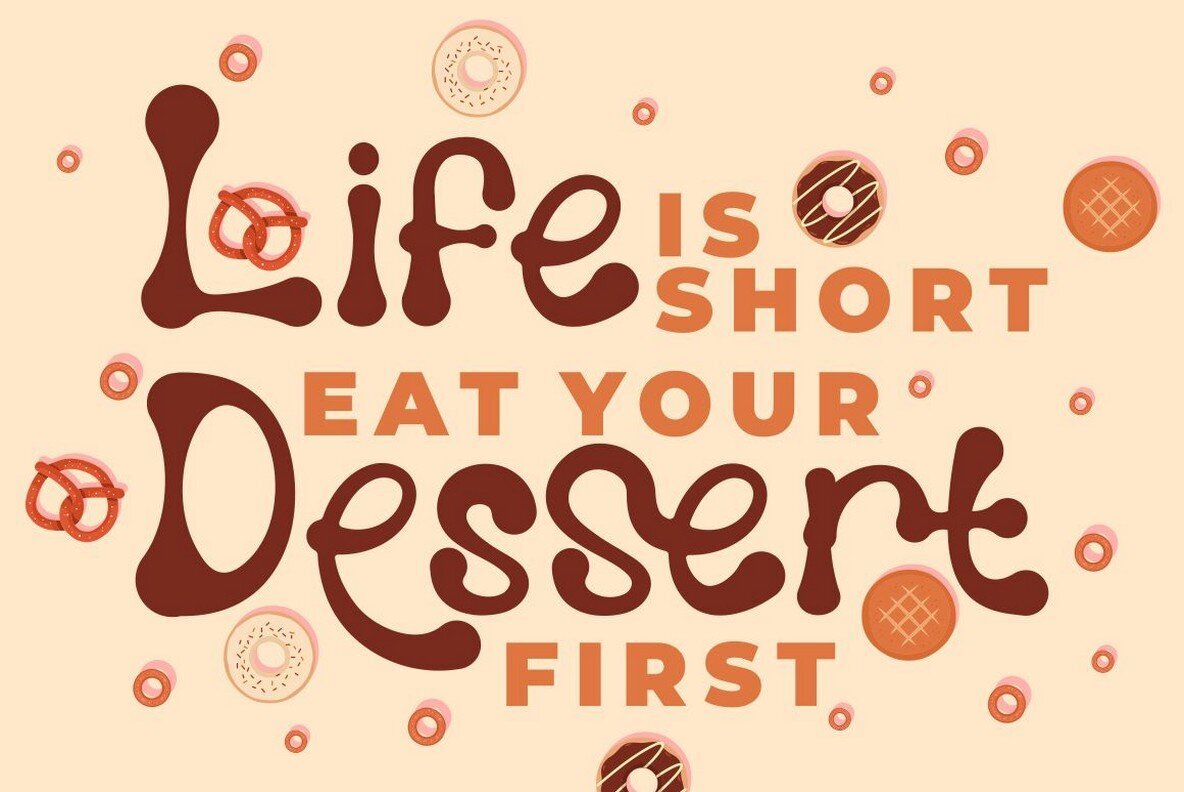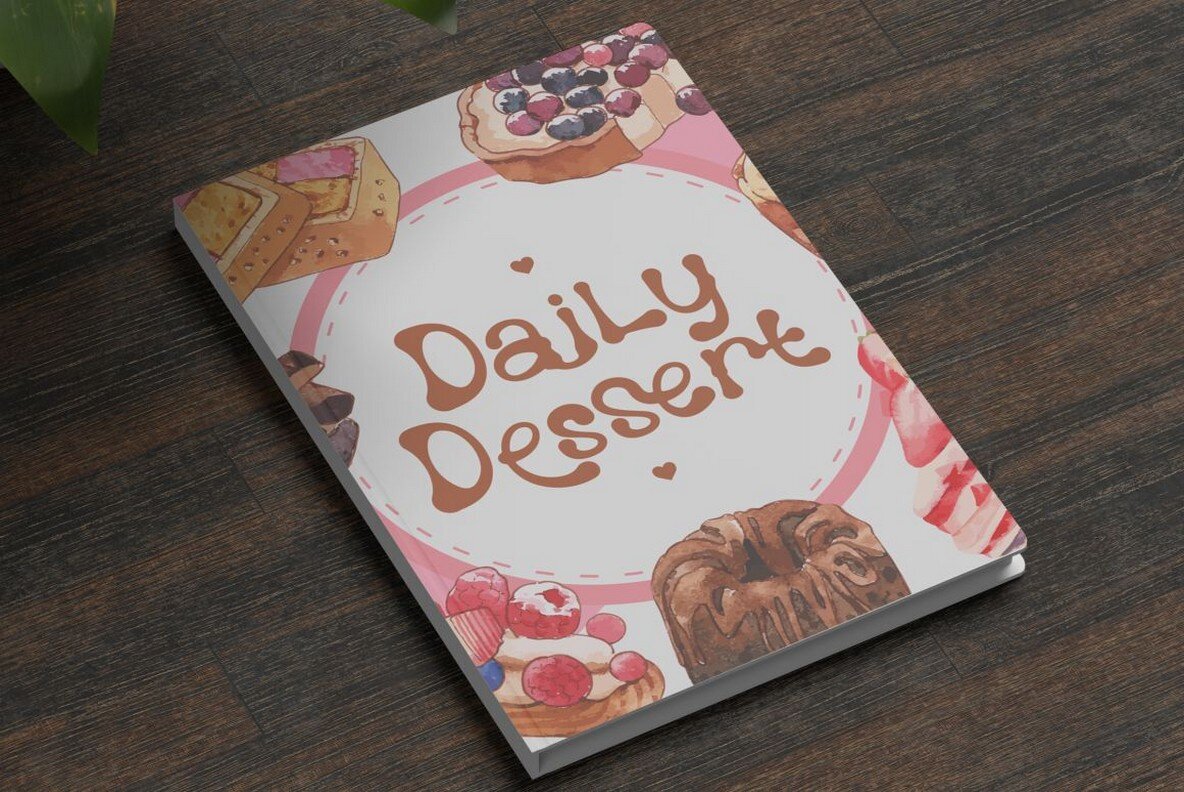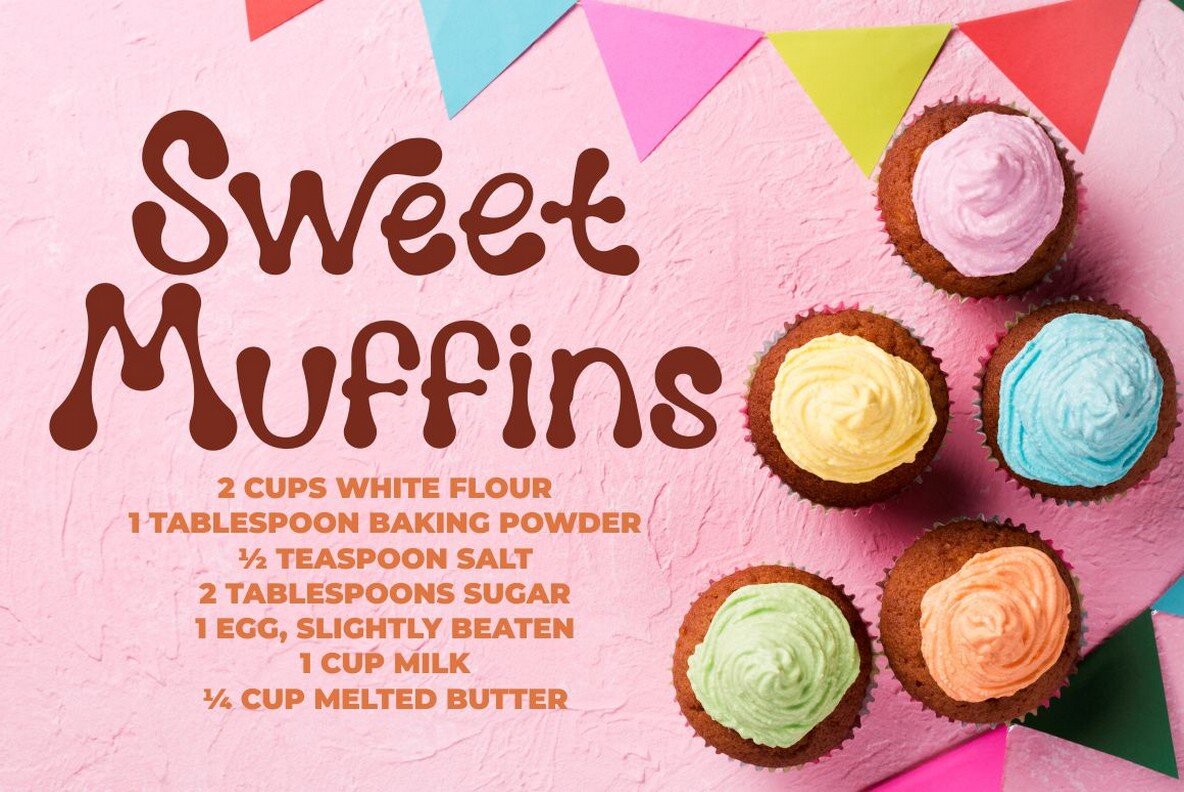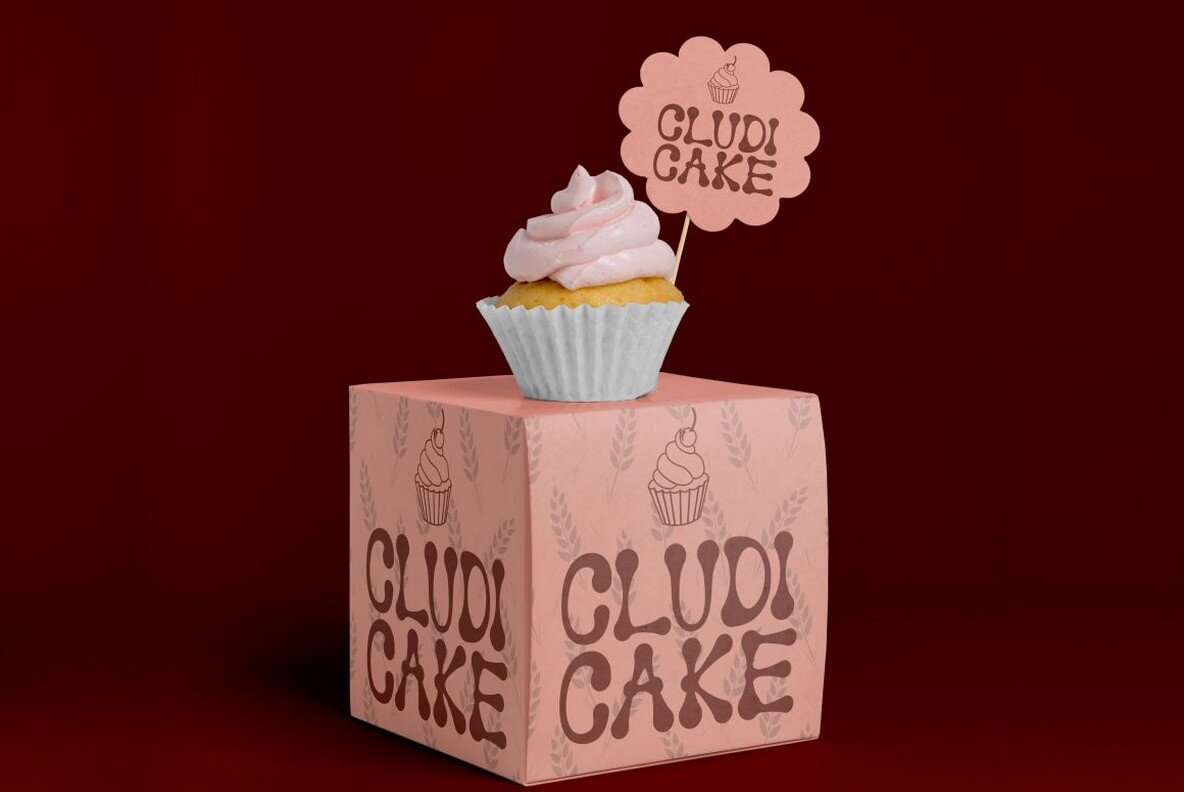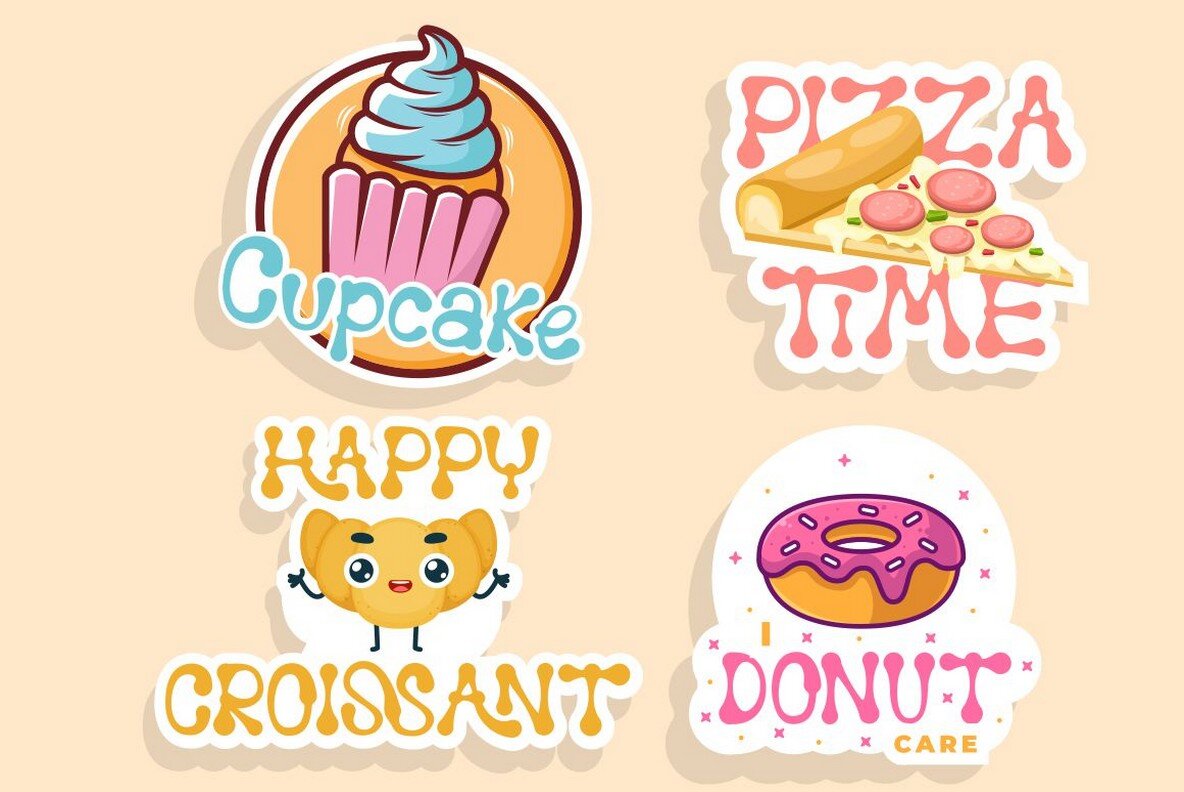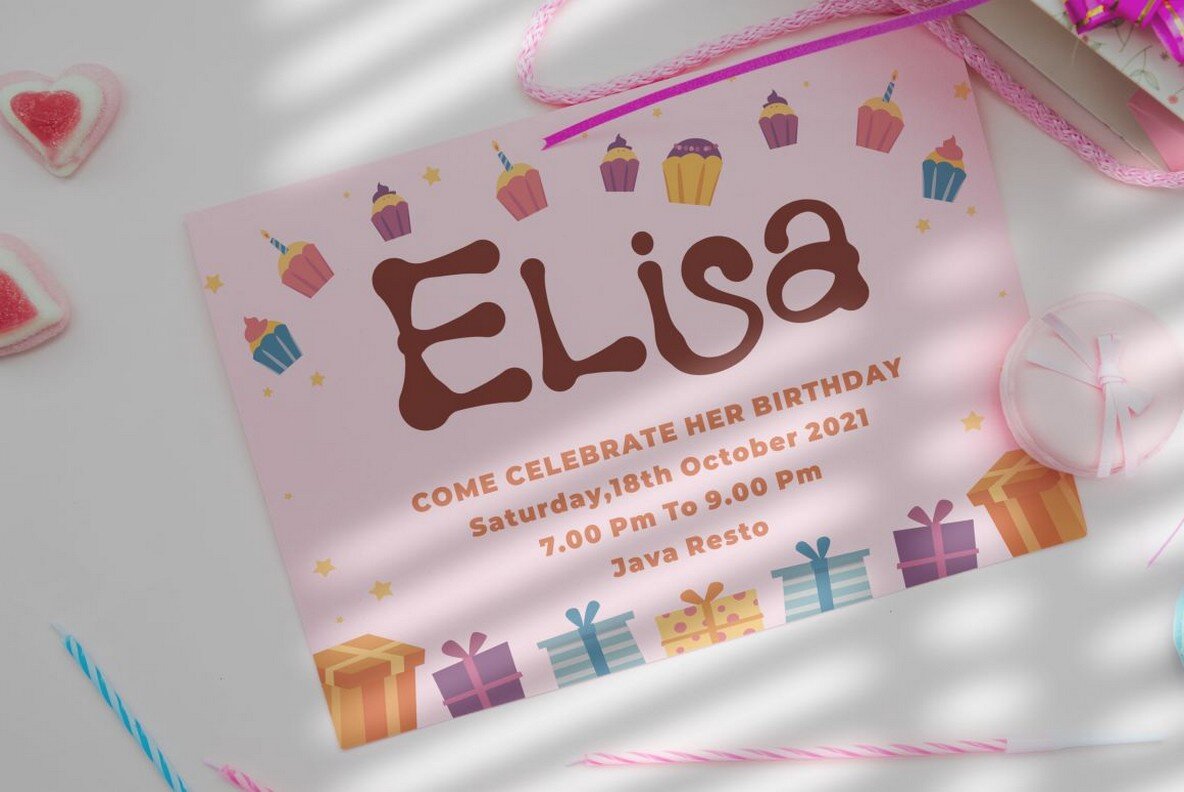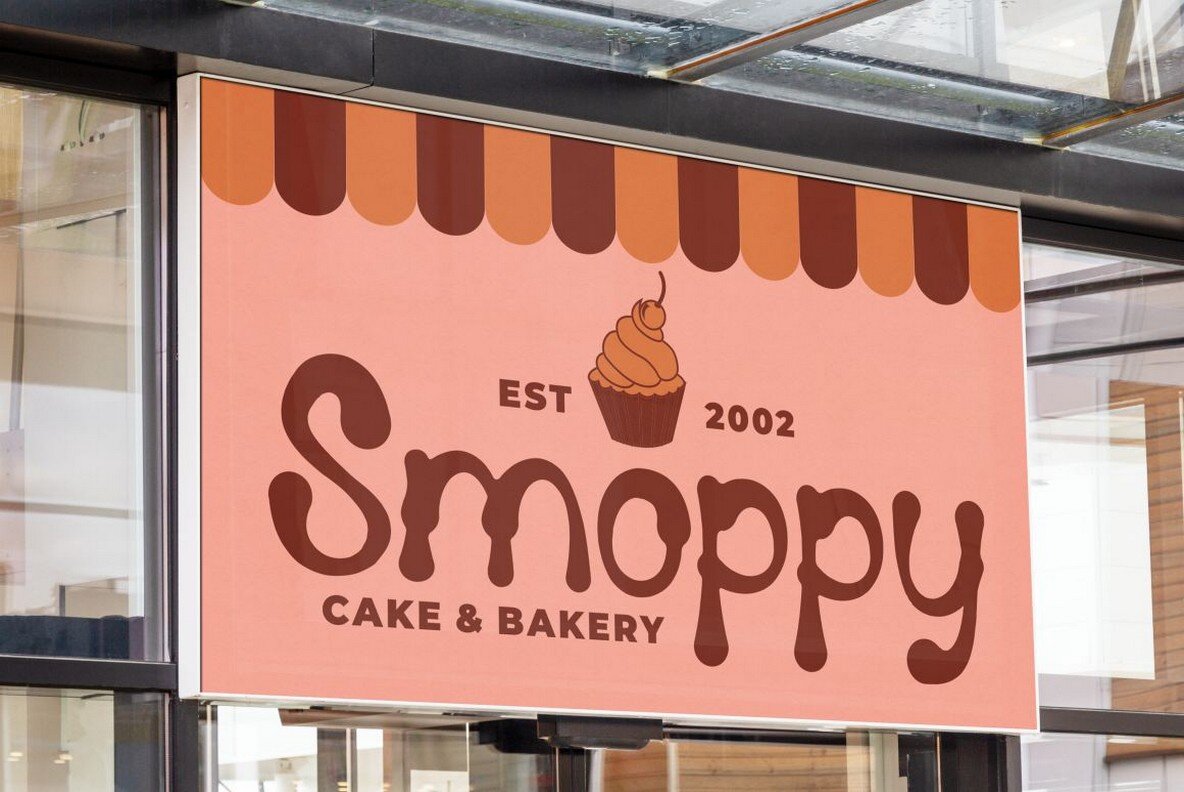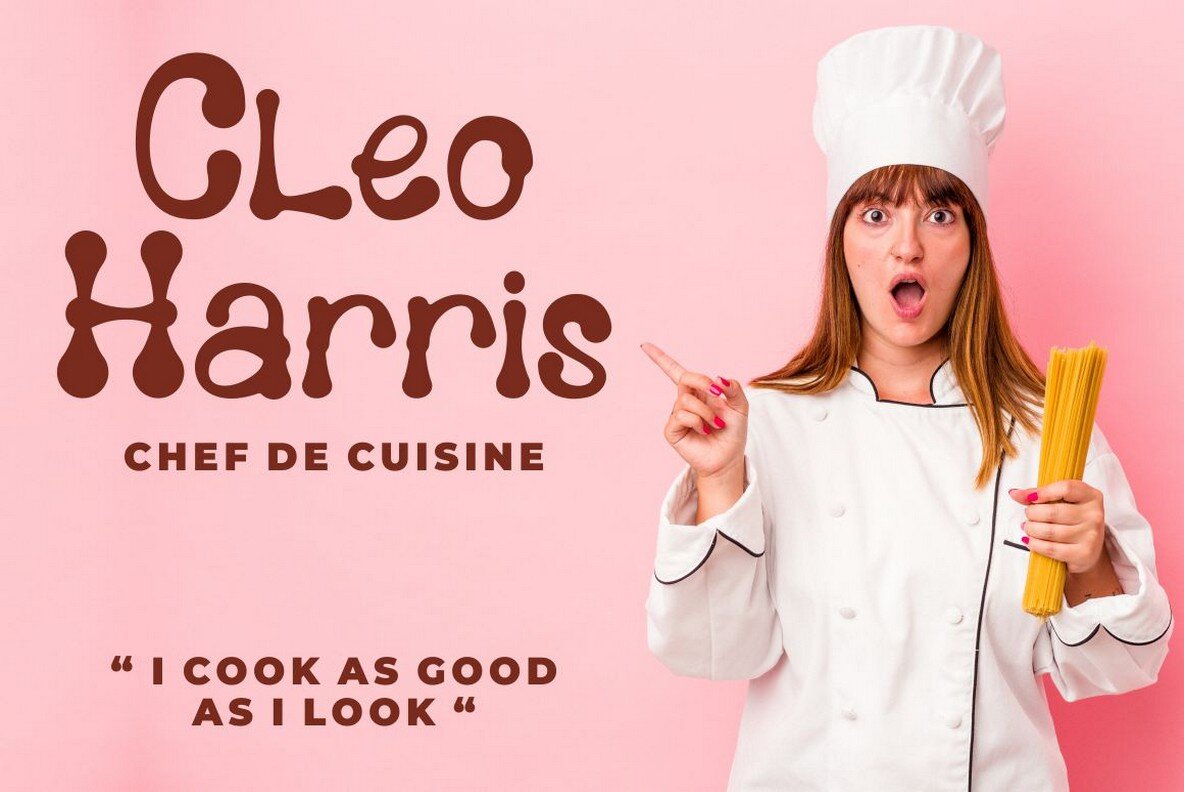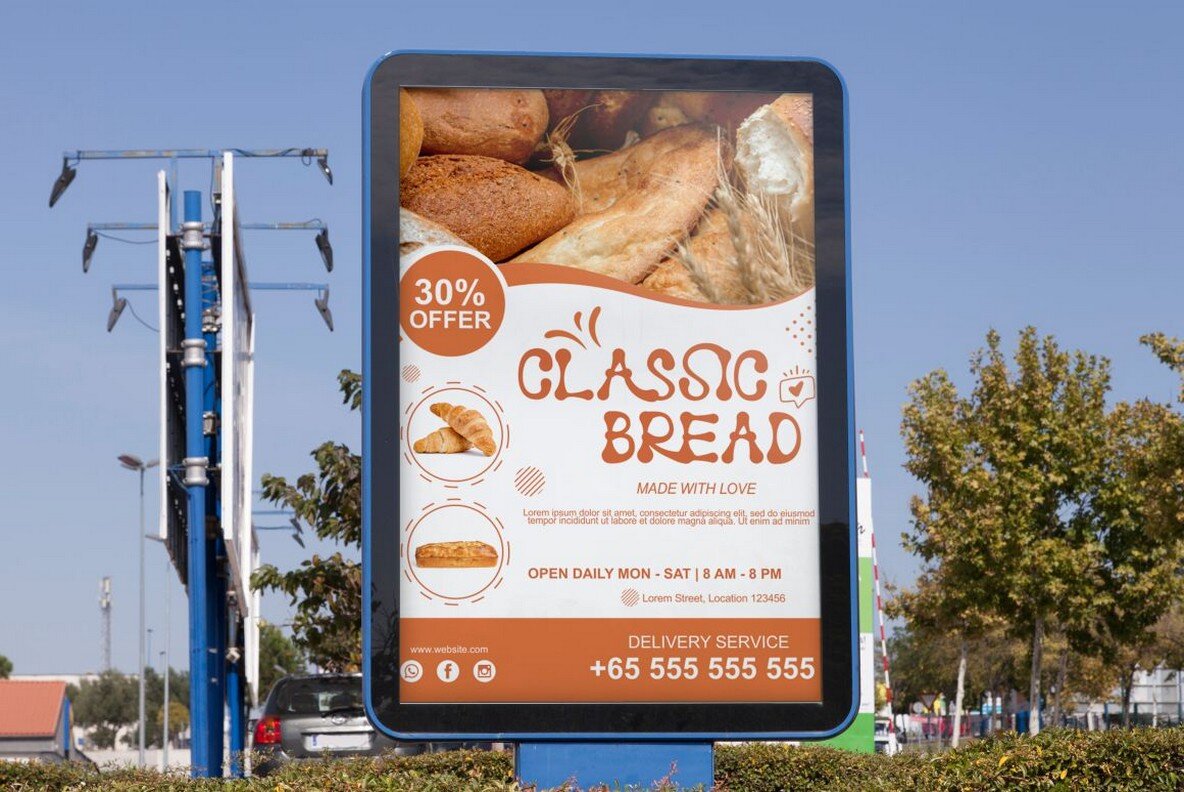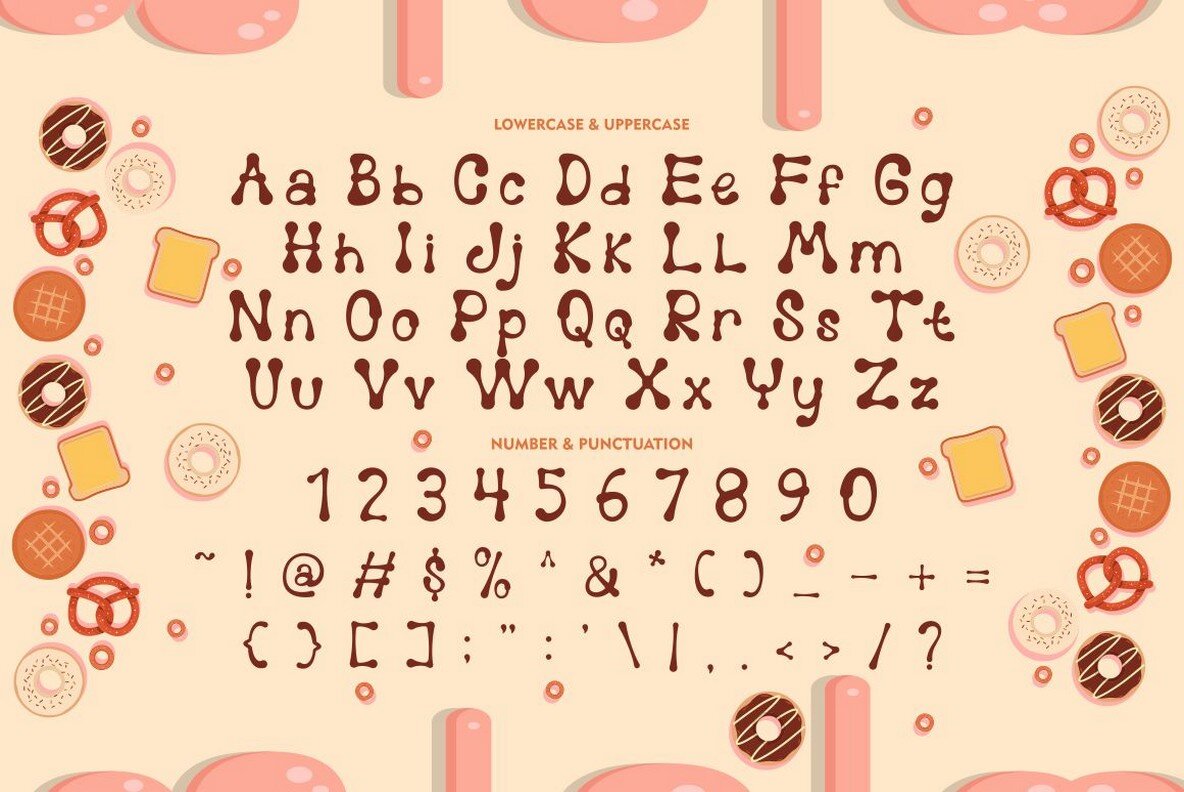
Melting Dessert Font
Melting Dessert
Infuse your projects with whimsy and creativity using Melting Dessert, a distinct display font characterized by its playful and quirky nature. Ideal for a broad range of creative endeavors, this font is sure to add a unique charm to storybooks, illustrations, comic books, and even branding projects. Whether you're designing t-shirts, posters, greeting cards, or any other display materials, Melting Dessert serves as an excellent choice that does not compromise on originality or versatility. This font thrives in platforms like Adobe Illustrator, InDesign, and Photoshop, making it an adaptable tool for any designer seeking to inject a dose of fun into their work.Melting Dessert: Playful Display Typography